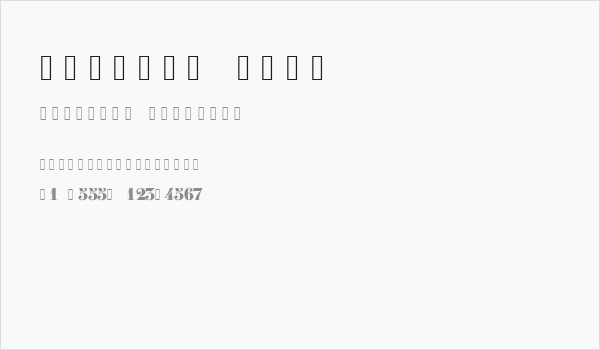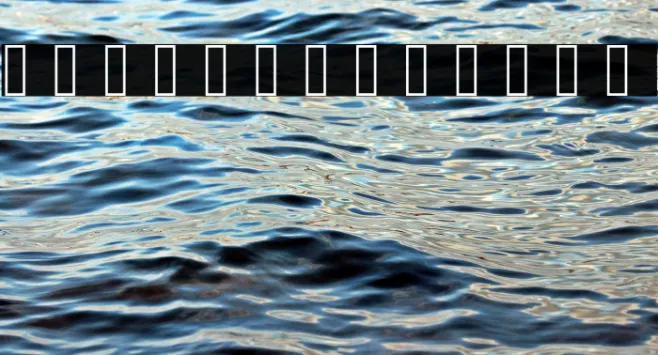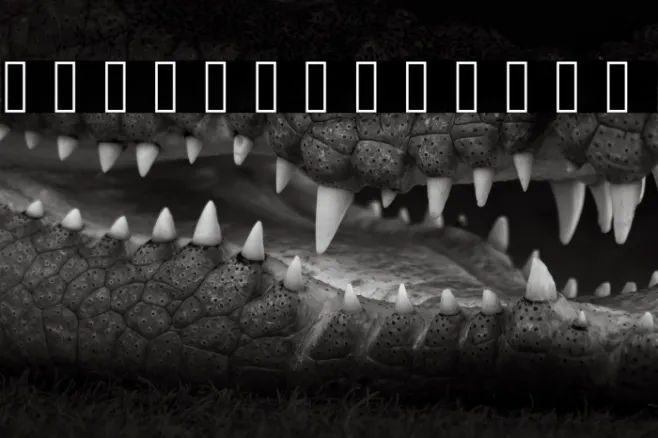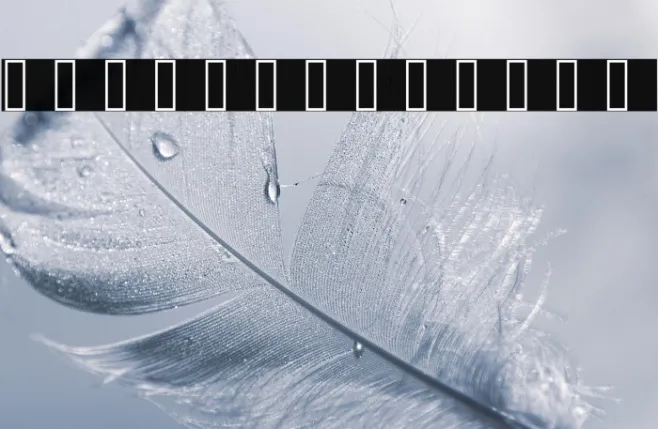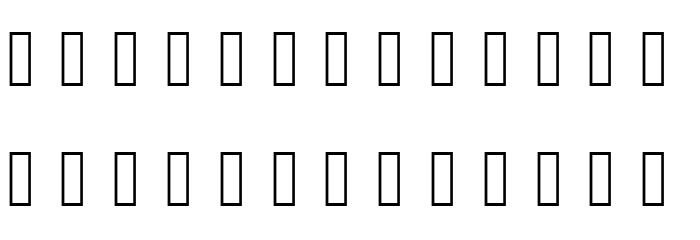
Clement Five Font
Clement Five Description
This font features a bold and striking design, characterized by its thick, dramatic strokes and high contrast between thick and thin lines. The numerals are particularly eye-catching, with a classic serif style that adds a touch of elegance and sophistication. The overall appearance is both powerful and refined, making it suitable for projects that require a strong visual impact. The font's design is reminiscent of traditional serif typefaces, yet it maintains a modern flair that keeps it relevant for contemporary use.